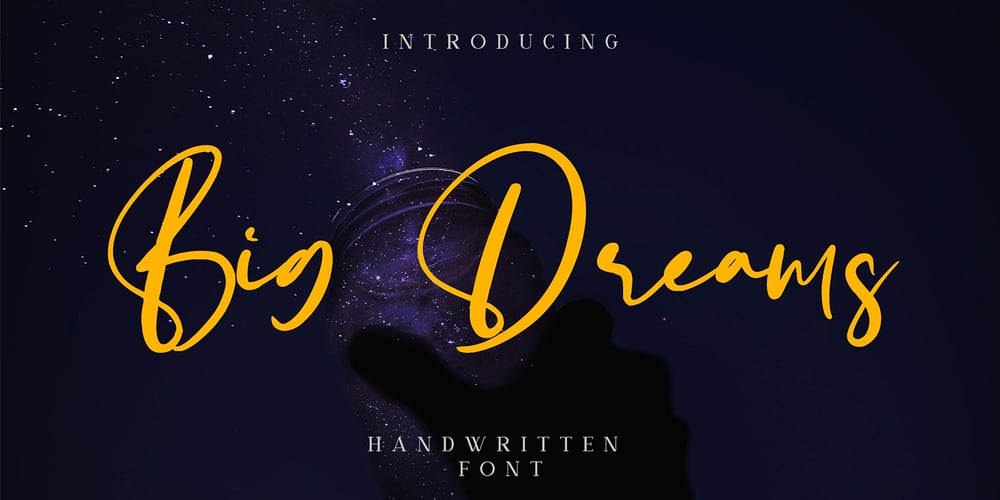
Big Dreams Font Family was designed by Yahdi Kumala and published by Rometheme. Big Dreams contains 1 styles and family package options. Big Dreams is a handwritten script font. It is casual, classy, and beautiful. It’s a great font for fashion, apparel projects, signature, album cover, logo, branding, magazine, social media, & advertisements, but also works great for other projects.